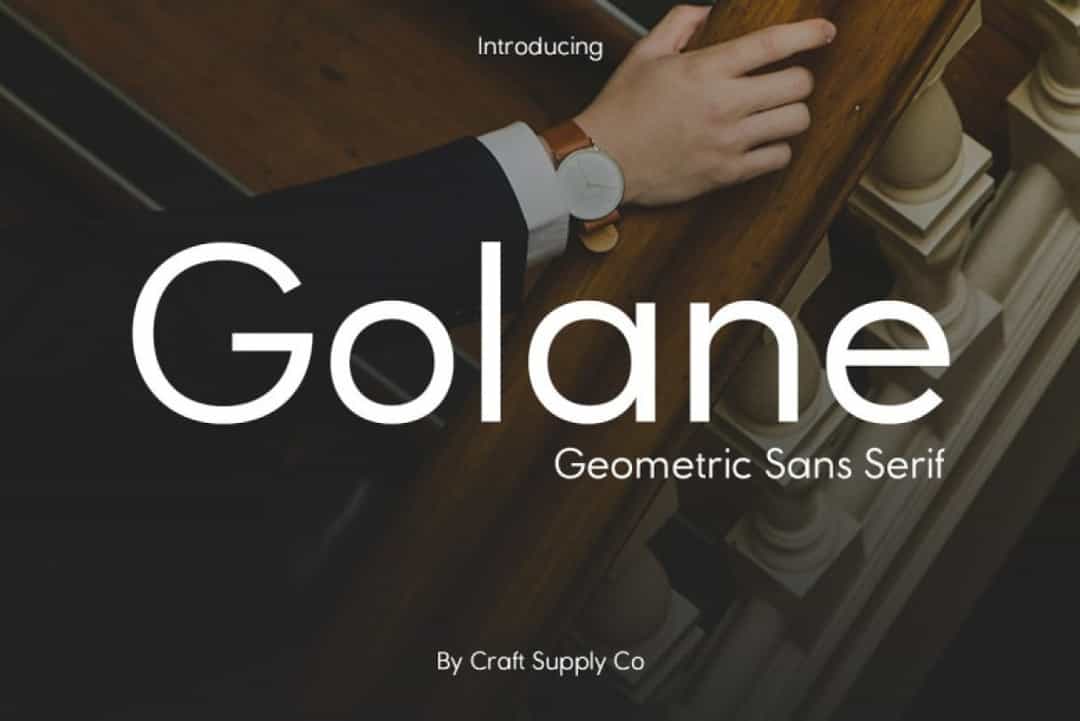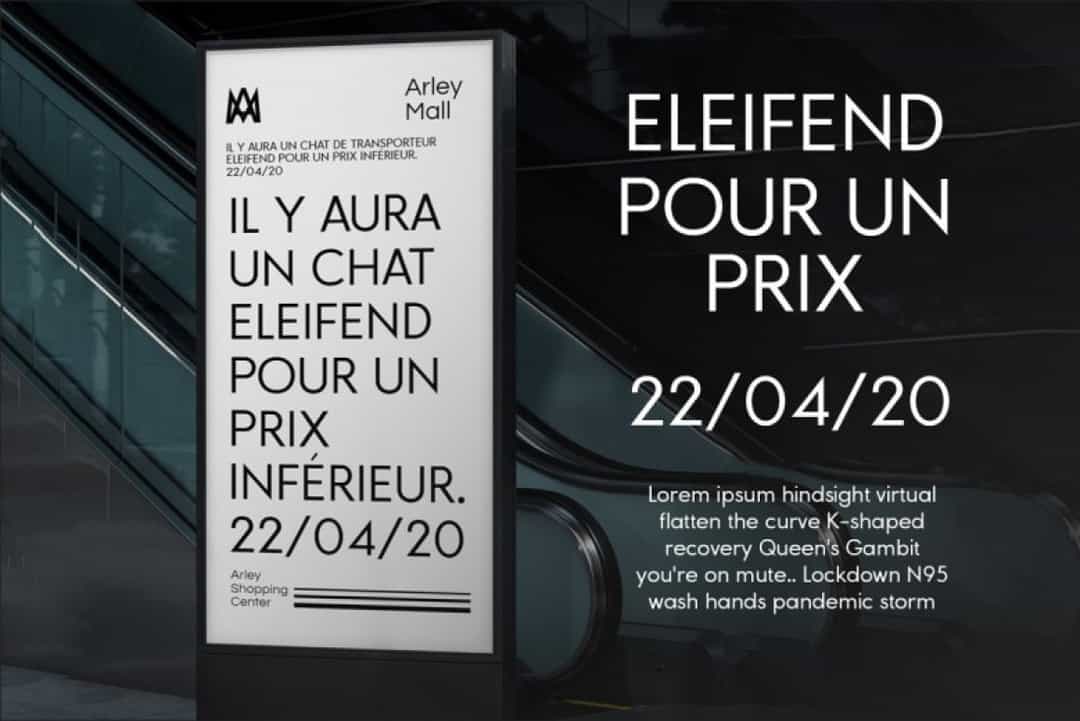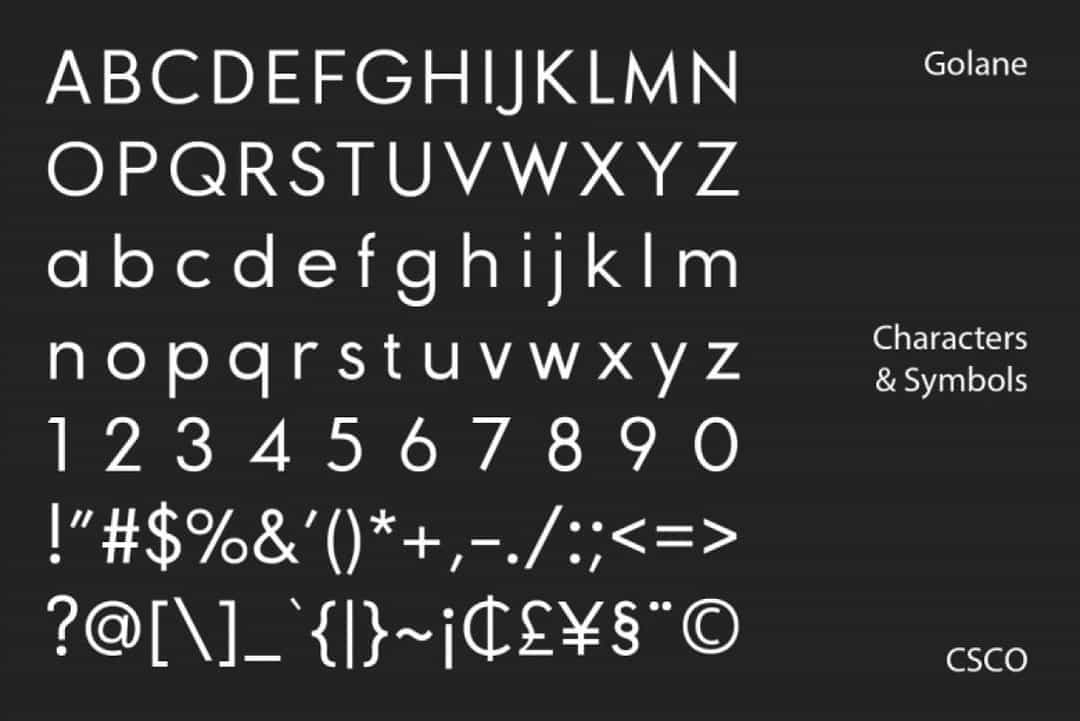
Golane, a Geometric Sans Serif font, offers modern contemporary style with its eye-catching geometric pattern and easy accessibility. Additionally, this font makes an impressionful first impression to novice users as well as experienced professionals alike.